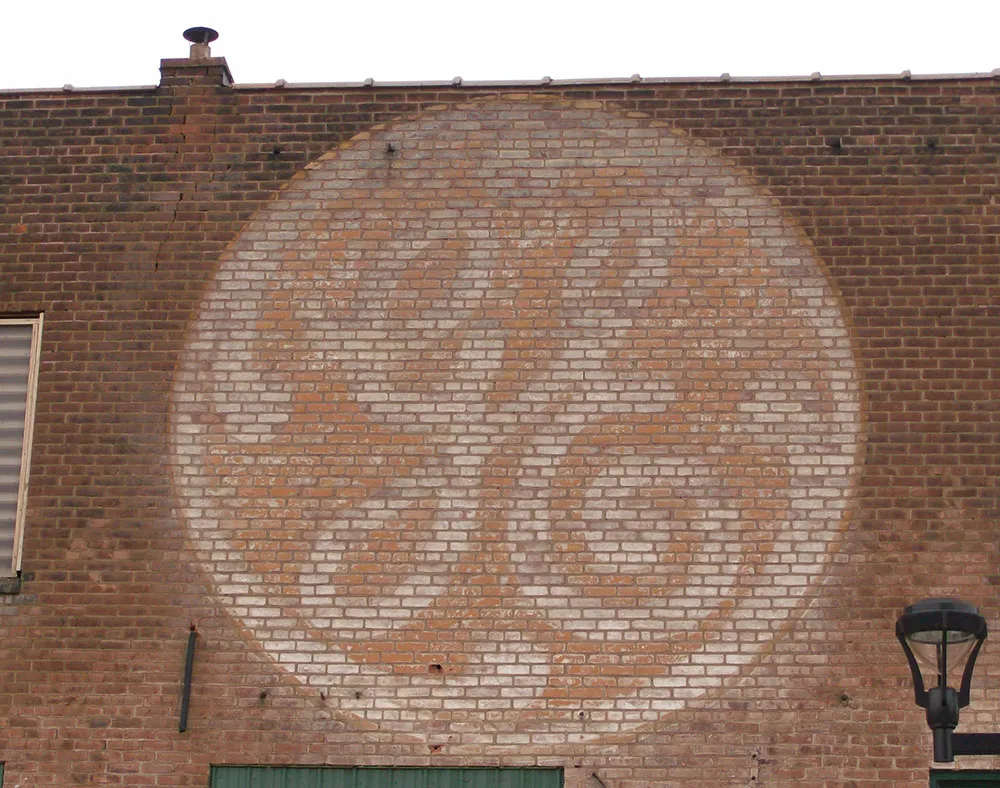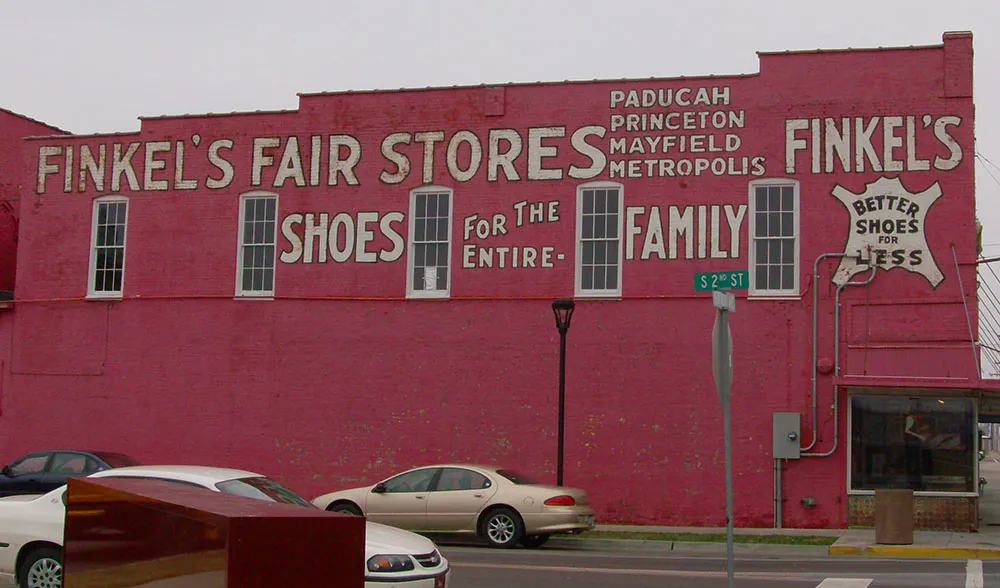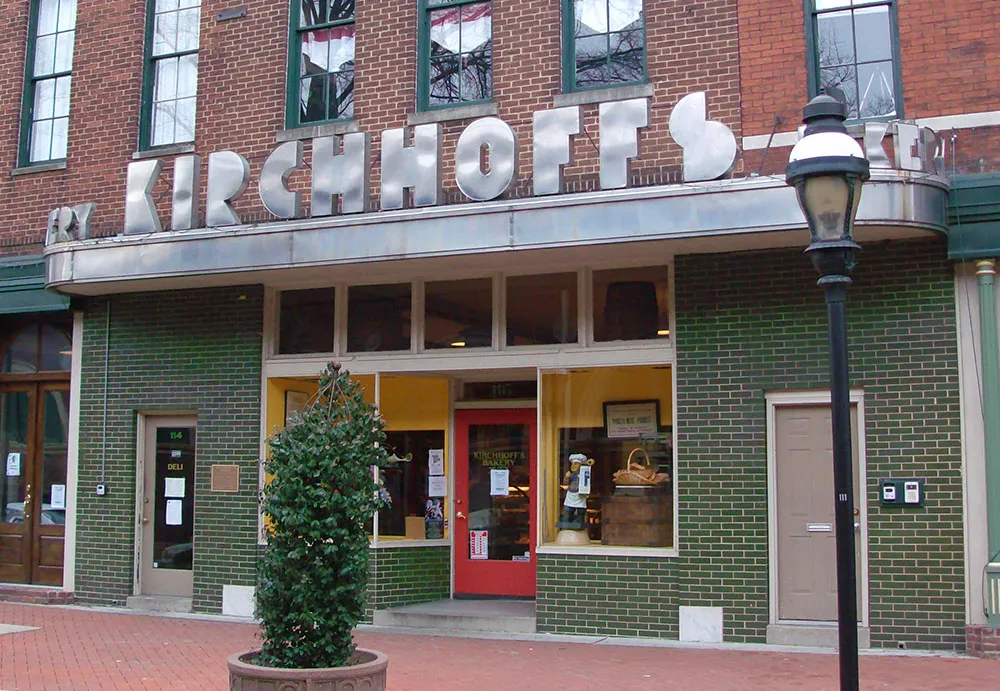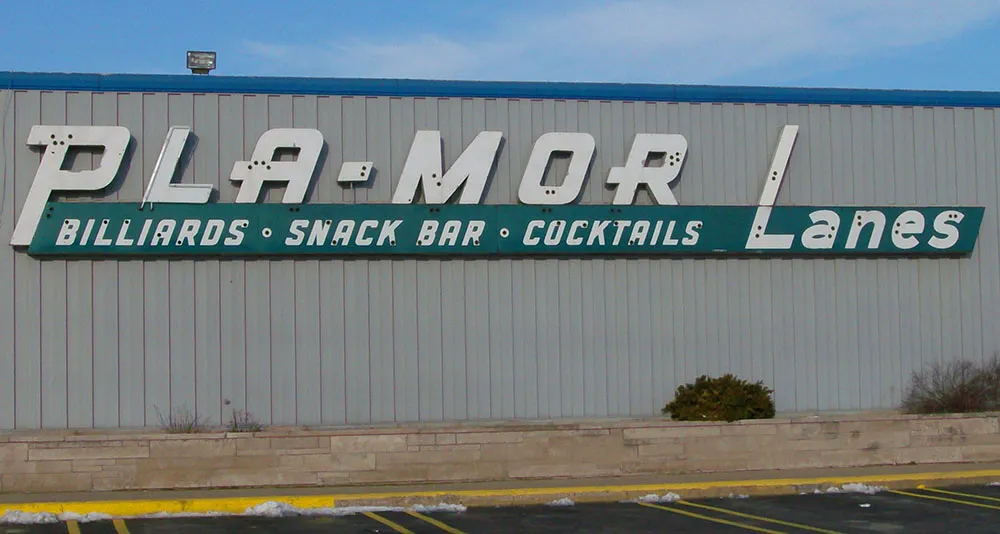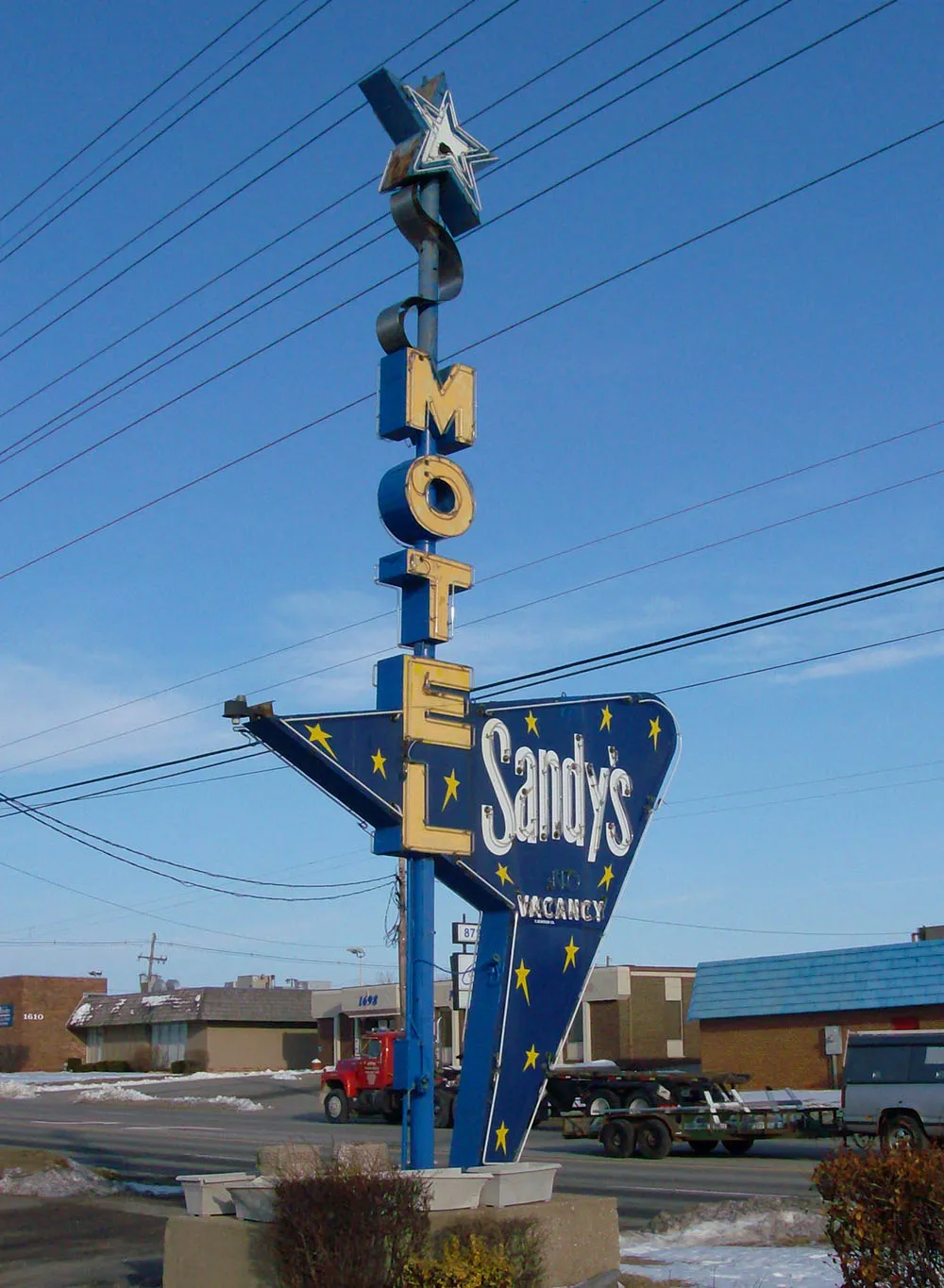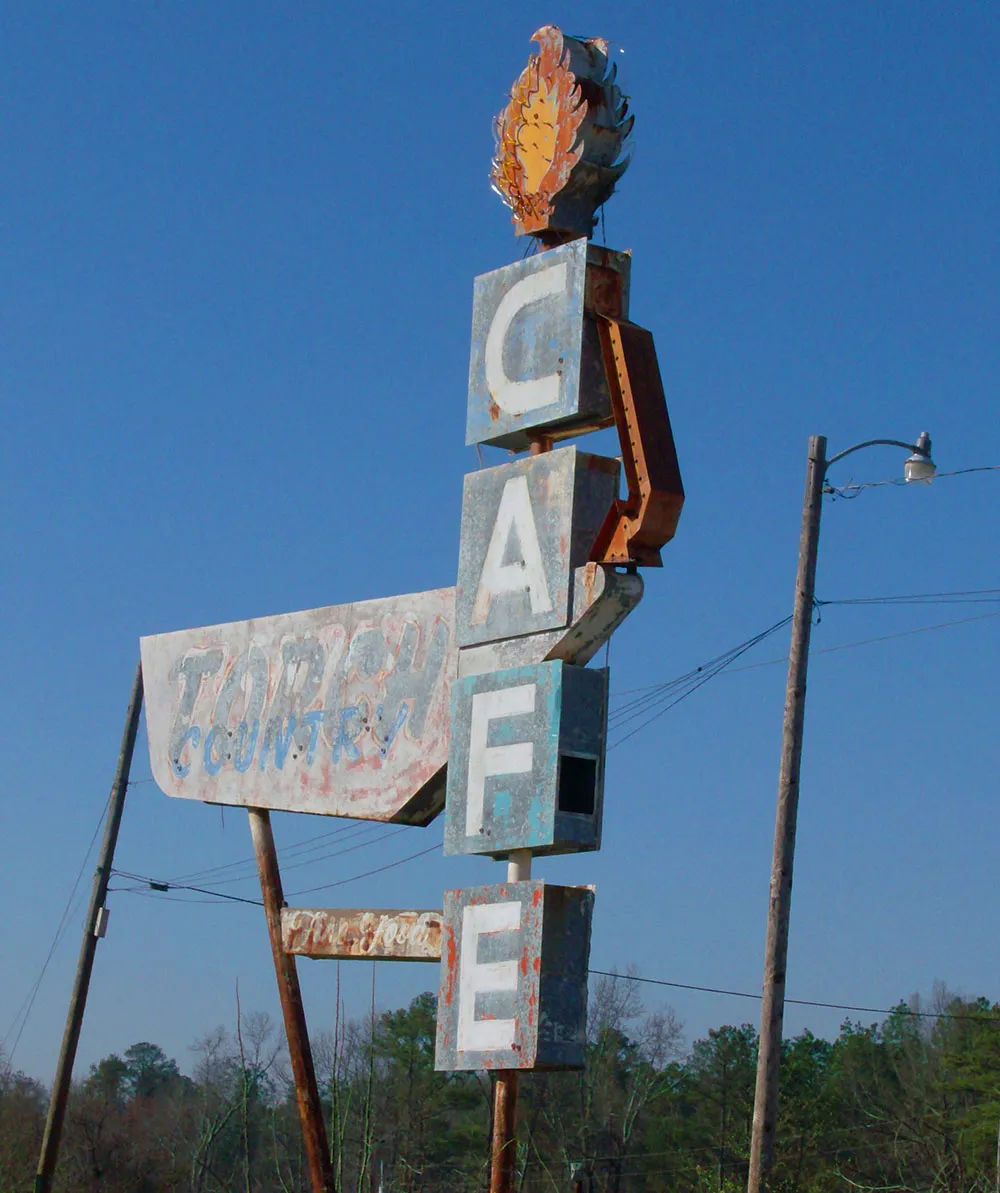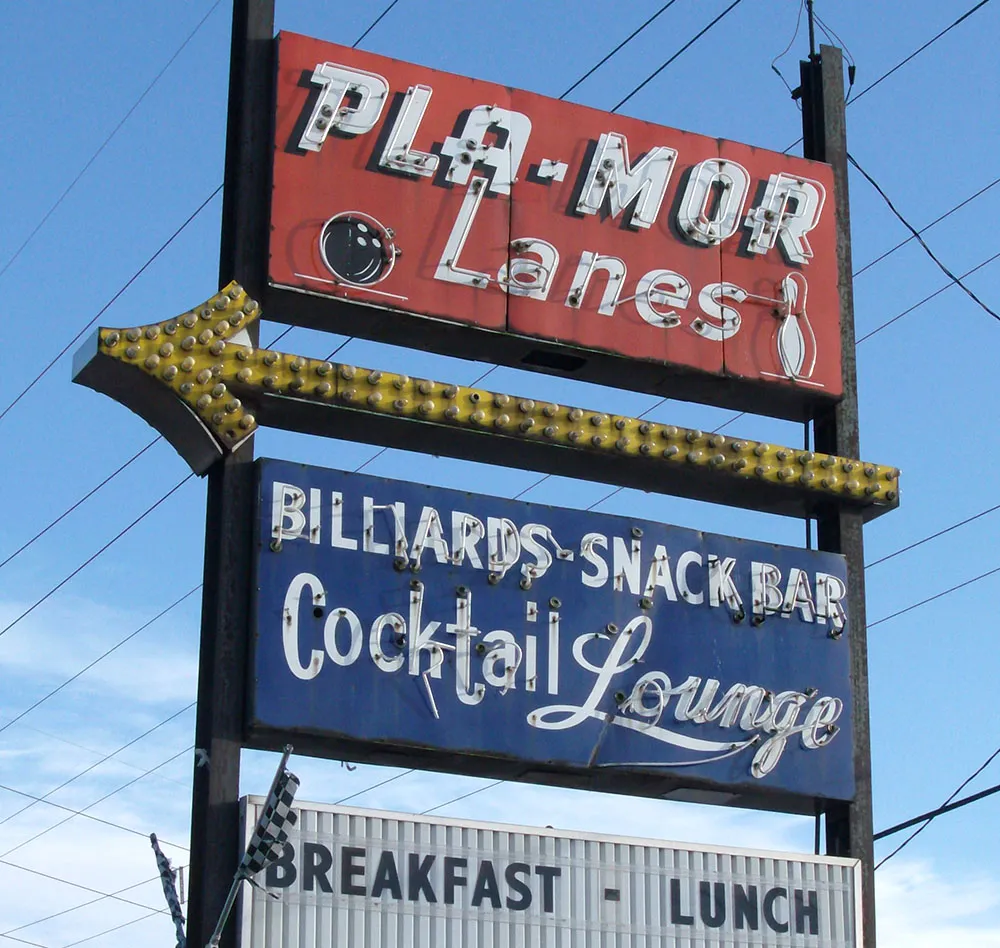
Greetings from Mike Meyer
Mike Meyer is a sign painter based in Mazeppa, Minnesota. I first knew of Mike’s work from the beautiful hand-painted signs he did for a restaurant in St. Paul called Andy’s Garage. (Unfortunately, the original location where I saw them in St. Paul is closed now, but his signs can still be seen at the Minneapolis location in the Midtown Commons.) Last year, Mike discovered my site and we began corresponding by email a bit. Recently, he sent me some photos of cool signs he took on a trip through the south. With his permission, here are a few of them: